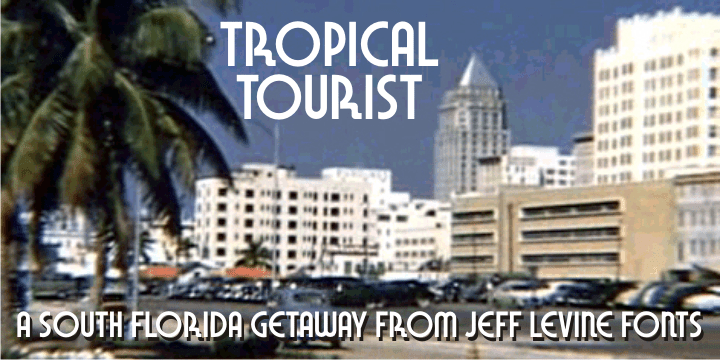
Tropical Tourist
A 1934 advertisement for the Roney Plaza Hotel at 23rd Street and Collins Avenue on Miami Beach yielded the inspiration for Tropical Tourist JNL. While this wonderful example of Art Deco lettering survived, sadly the original Roney was torn down around 1969 and replaced with a modern apartment house/condos bearing the same name.
Tropical Tourist JNL Regular by Jeff Levine Fonts